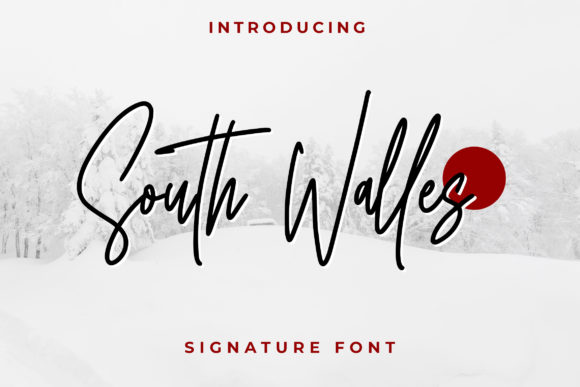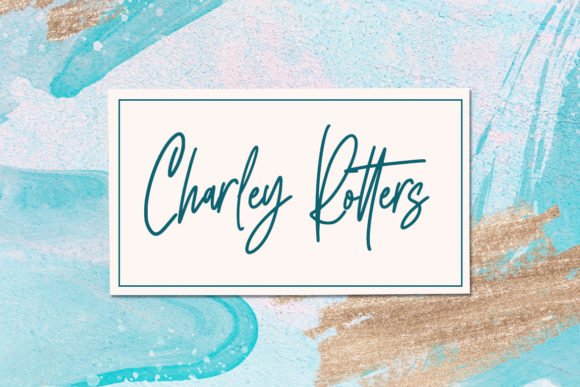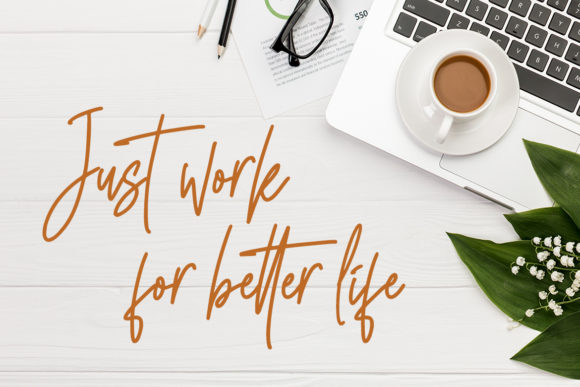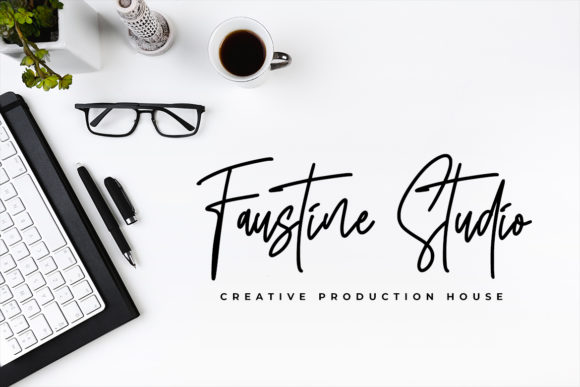
South Walles Font
About South Walles Font
South Walles delivers smooth and charming letters and an overall stunning font experience. Use it to add an authentic touch to any design project.